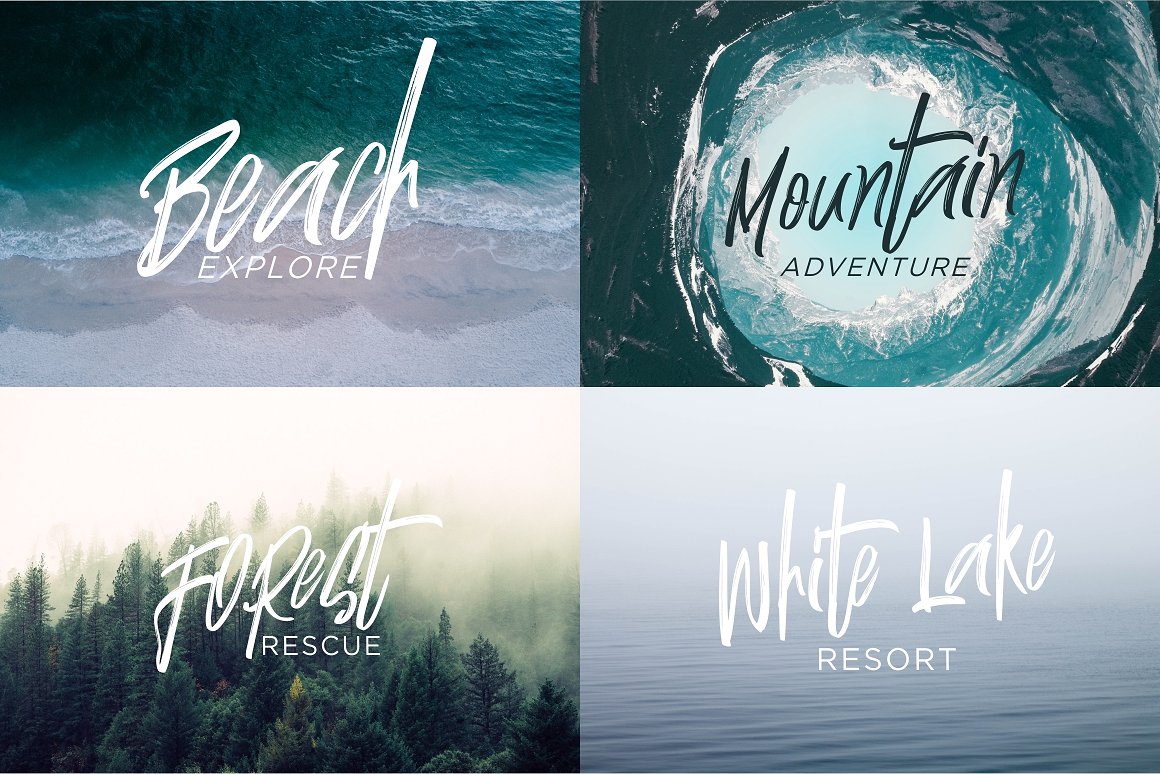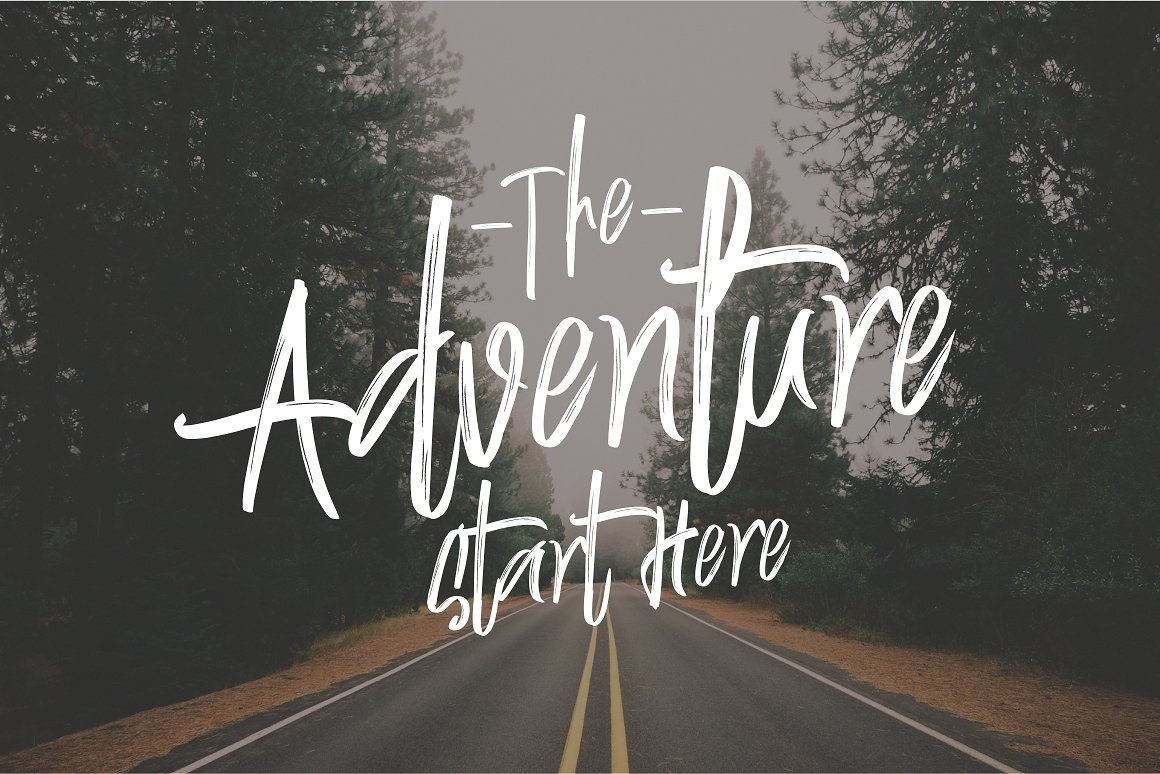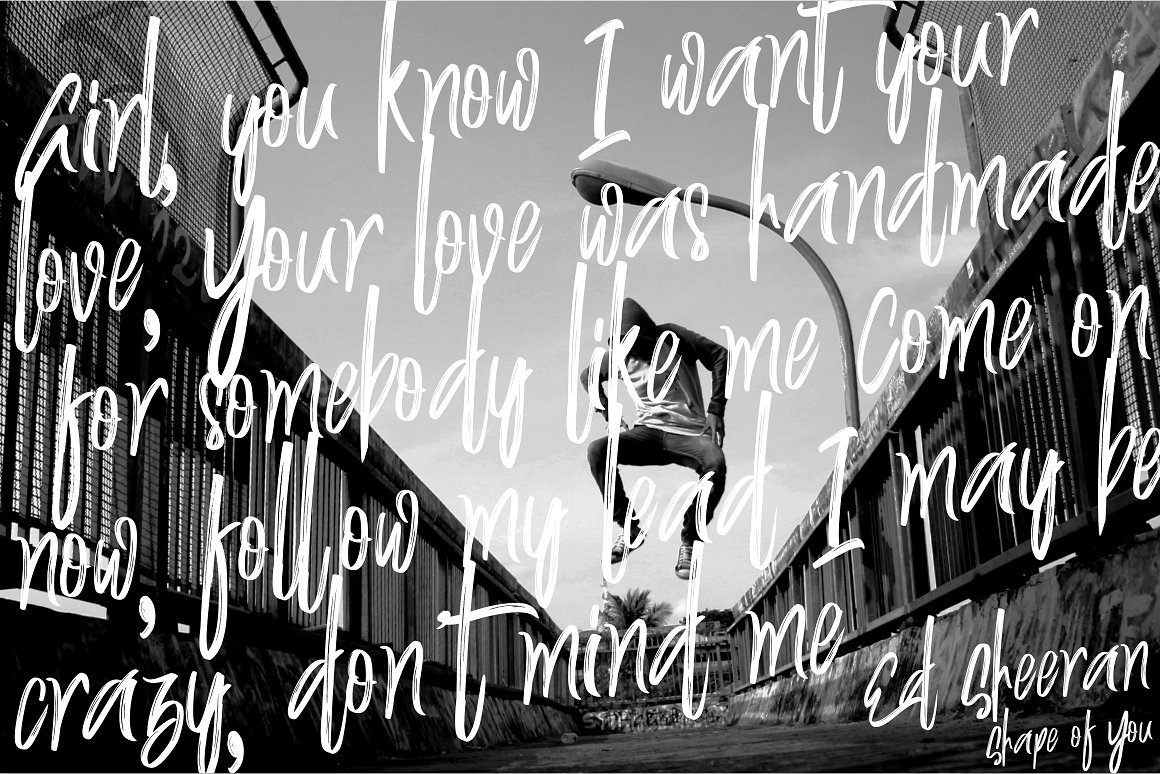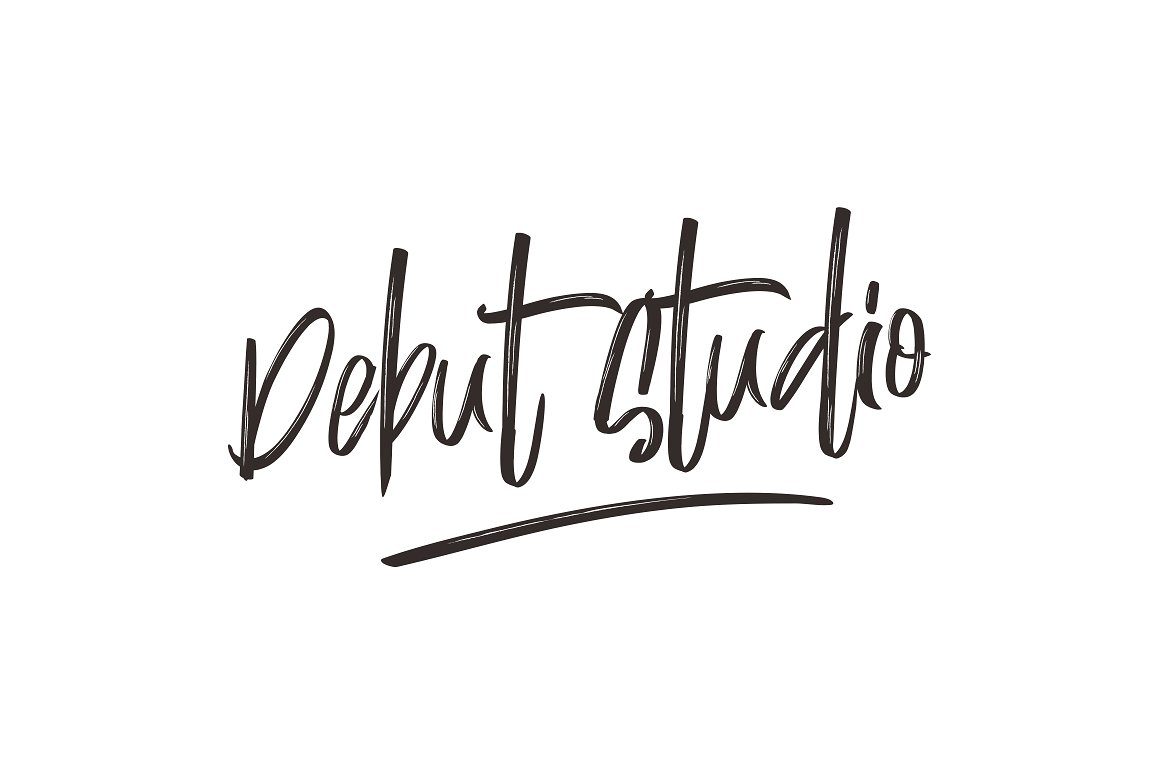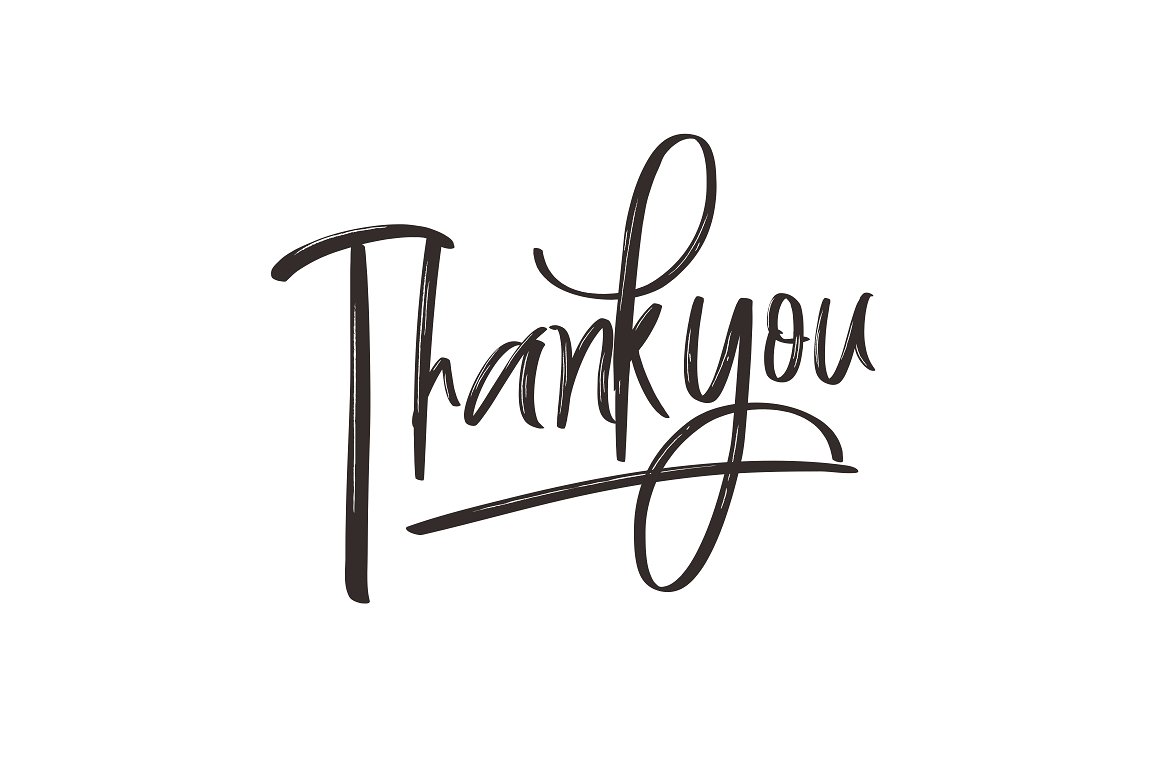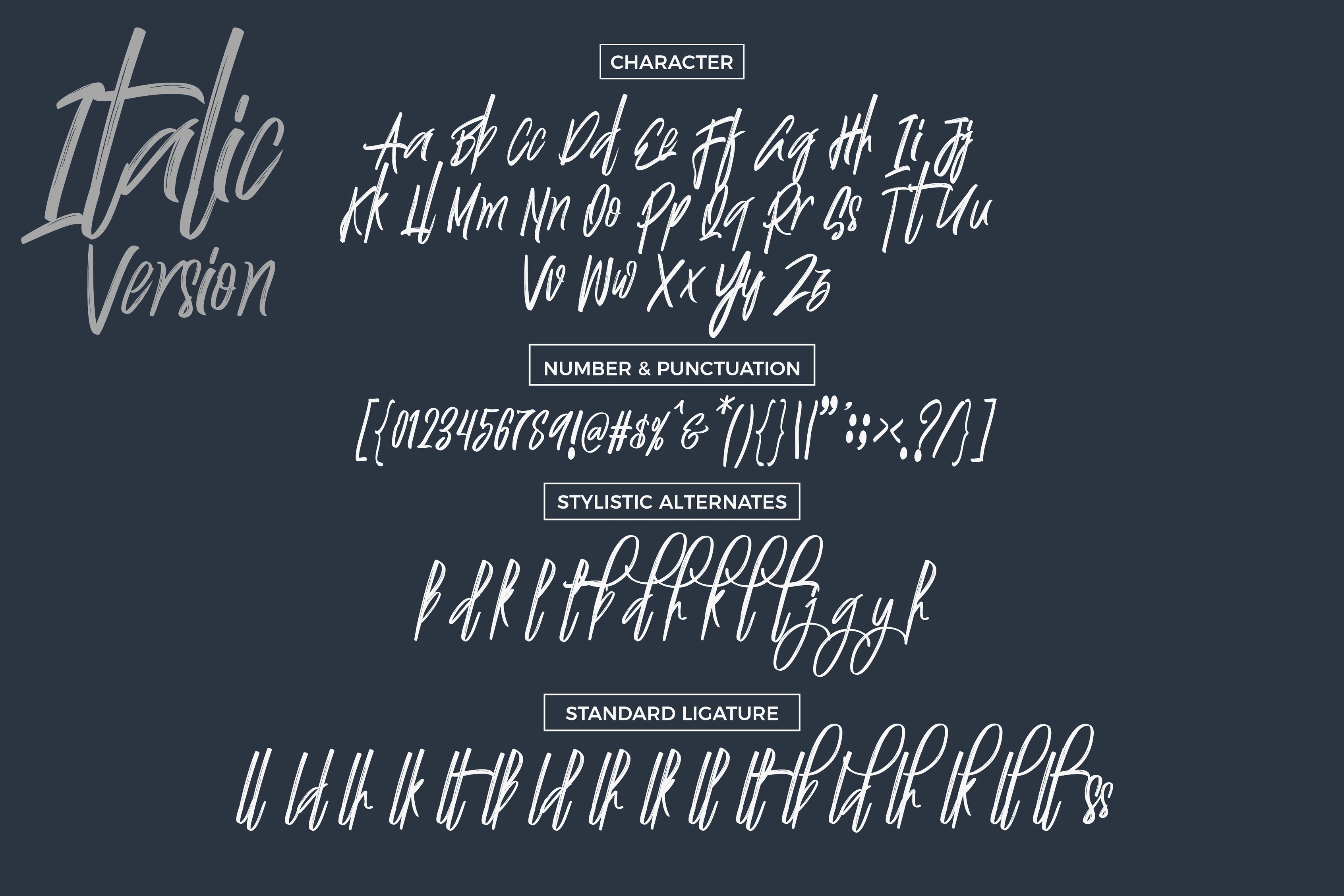
Introduction to Justin Brush Font
Do you remember the feeling of sitting at your desk, surrounded by blank pages and endless possibilities? It’s the spark of creativity that ignites the flame of inspiration, and for many designers, it’s the moment they start to envision their next big project. For me, it’s the perfect time to dig out my trusty brush pen and get ready to create something truly unique. And that’s exactly what the Justin Brush Font is all about – bringing that same personal touch to your designs.
As a high-quality, free download, the Justin Brush Font is an invaluable design resource for any creative project. With its handwritten calligraphy-style feel, it’s the perfect addition to any design looking for a touch of elegance and sophistication. And with a transparent background, you can easily layer it over any image or texture, adding depth and visual interest to your work.
- Unique, hand-drawn style with subtle brush strokes, adding a personal touch to designs
- Perfect for a wide range of creative projects, from logos to typography-based art
Honest Review: Justin Brush Font
I recently stumbled upon the Justin Brush Font and was pleasantly surprised by its quality. As a designer, I appreciate a good free download that can elevate my creative projects.
Here are some things that work well about this font: ✨ High-quality design, perfect for creating a professional look. ✨ Transparent background makes it easy to use in various design contexts. ✨ Elegant and refined, great for business cards, logos, or any other branding materials.
However, there are a few limitations to consider: ⚠️ Limited character set, which might be a problem for designers who need a wide range of characters. ⚠️ Not suitable for body text, as it’s more of a display font.
Overall, I’m impressed with the Justin Brush Font. It’s a great design resource for anyone looking for a high-quality, elegant font to use in their creative projects. While it may have some limitations, its strengths make it a valuable addition to any designer’s toolkit.
- Elegant and refined
- Limited character set
- Not suitable for body text
To get the most out of the Justin Brush Font, use it in conjunction with other high-quality design resources. Experiment with different font sizes, colors, and combinations to create unique and eye-catching designs. The font’s transparent background also allows for easy layering and manipulation.
Common Use Cases for the Justin Brush Font
The Justin Brush Font is commonly used in a variety of creative projects, including graphic design, digital art, and branding. Its high-quality design and transparent background make it a versatile and useful tool for designers and artists.